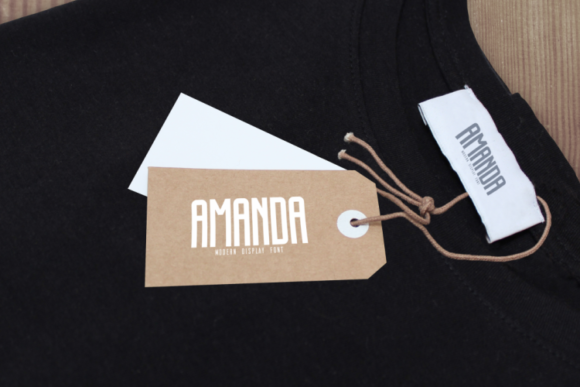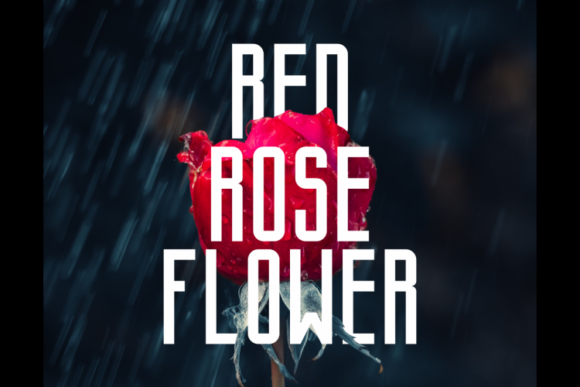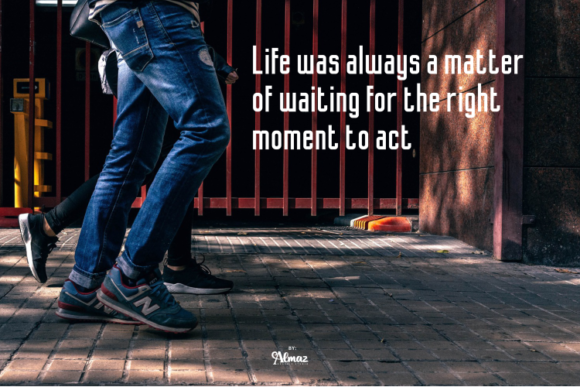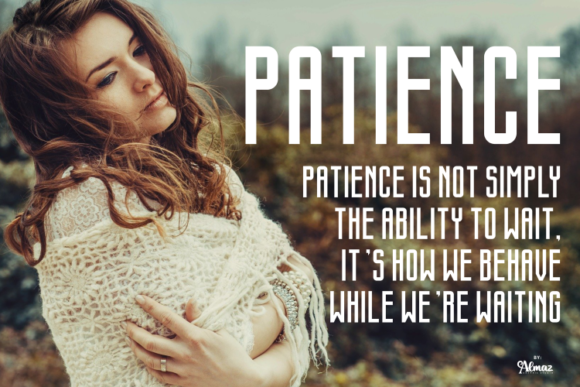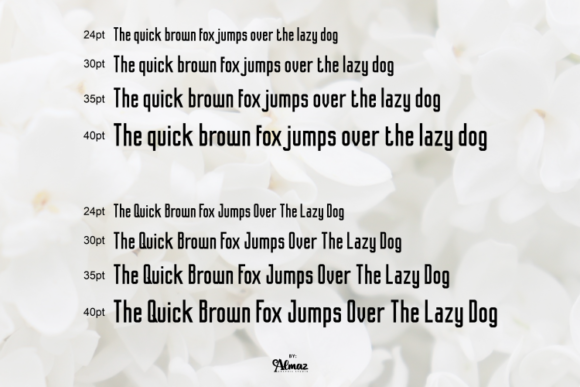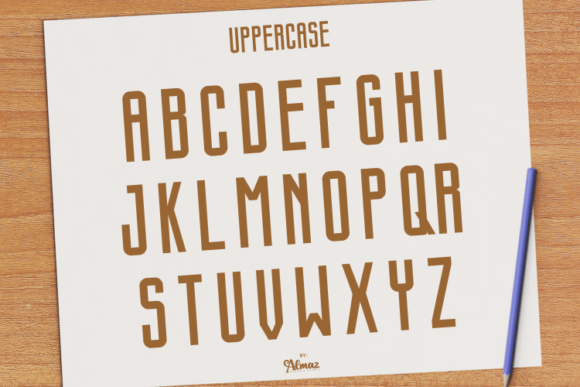
The Amanda Font: A Minimalist’s Dream Come True
I’ll never forget the time I was working on a wedding invitation project, and my client asked for a font that was both elegant and modern. I scoured the internet, tried out dozens of fonts, but nothing seemed quite right. That was until I stumbled upon the Amanda font. With its clean lines and sharp edges, it was love at first sight! In this article, I’ll share my experience with the Amanda font, its features, and how to make the most of it in your designs.
- ✨ Clean and minimalist design: The Amanda font is perfect for those who love a simple, yet sophisticated look.
- ✅ High versatility: It works beautifully for weddings, logos, quotes, print, signage, and more!
- 💡 Excellent readability: The font’s sharp edges and clean lines make it easy to read, even at small sizes.
While the Amanda font is amazing, there are a few things to keep in mind:
- 🤔 Limited glyphs: The font may not have as many glyphs as some other fonts, but it still offers a range of OpenType features.
- ⚠️ Not suitable for body text: Due to its minimalist design, the Amanda font may not be the best choice for long blocks of body text.
- Experiment with OpenType features, such as ligatures and stylistic alternates, to add visual interest.
The Story Behind Amanda
The Amanda font was designed with the modern minimalist in mind. Its creator aimed to craft a font that was both clean and versatile, perfect for a wide range of design projects. With its sharp edges and simple lines, the Amanda font has become a favorite among designers and crafters.
| What is the Amanda font best used for? | The Amanda font is perfect for designs that require a clean and minimalist look, such as weddings, logos, quotes, print, signage, and more! |
| Is the Amanda font suitable for body text? | While the Amanda font is beautiful, it may not be the best choice for long blocks of body text due to its minimalist design. |